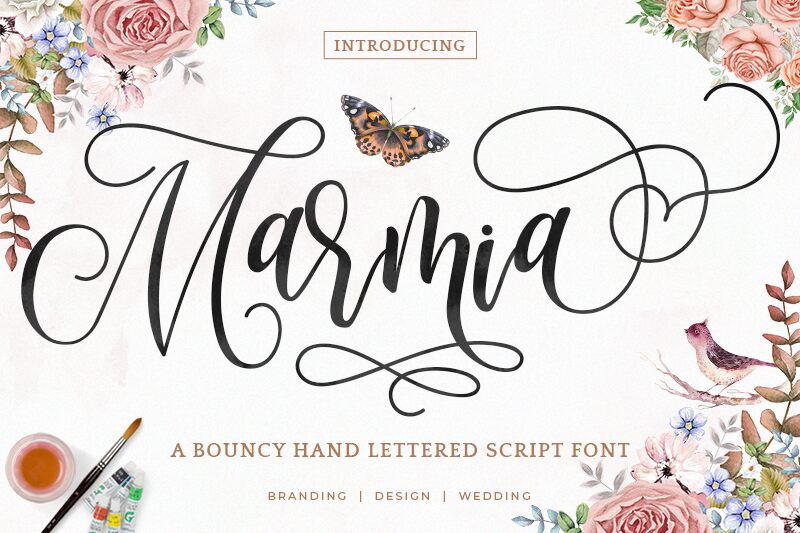
Marmia is a captivating calligraphy font that exudes elegance and sophistication. Crafted by designer Arif Dwi, this font boasts a harmonious blend of graceful curves and sharp, decisive strokes.
The flowing, script-like letterforms lend an air of effortless charm, making Marmia an ideal choice for a variety of design applications, from high-end branding and editorial layouts to personalized stationery and wedding invitations. Its versatility shines through in its ability to convey a sense of refined, timeless beauty, while still maintaining a modern, sophisticated flair.
Marmia's distinctive character and versatility make it a standout selection for designers seeking to elevate their creations with a touch of elegance.